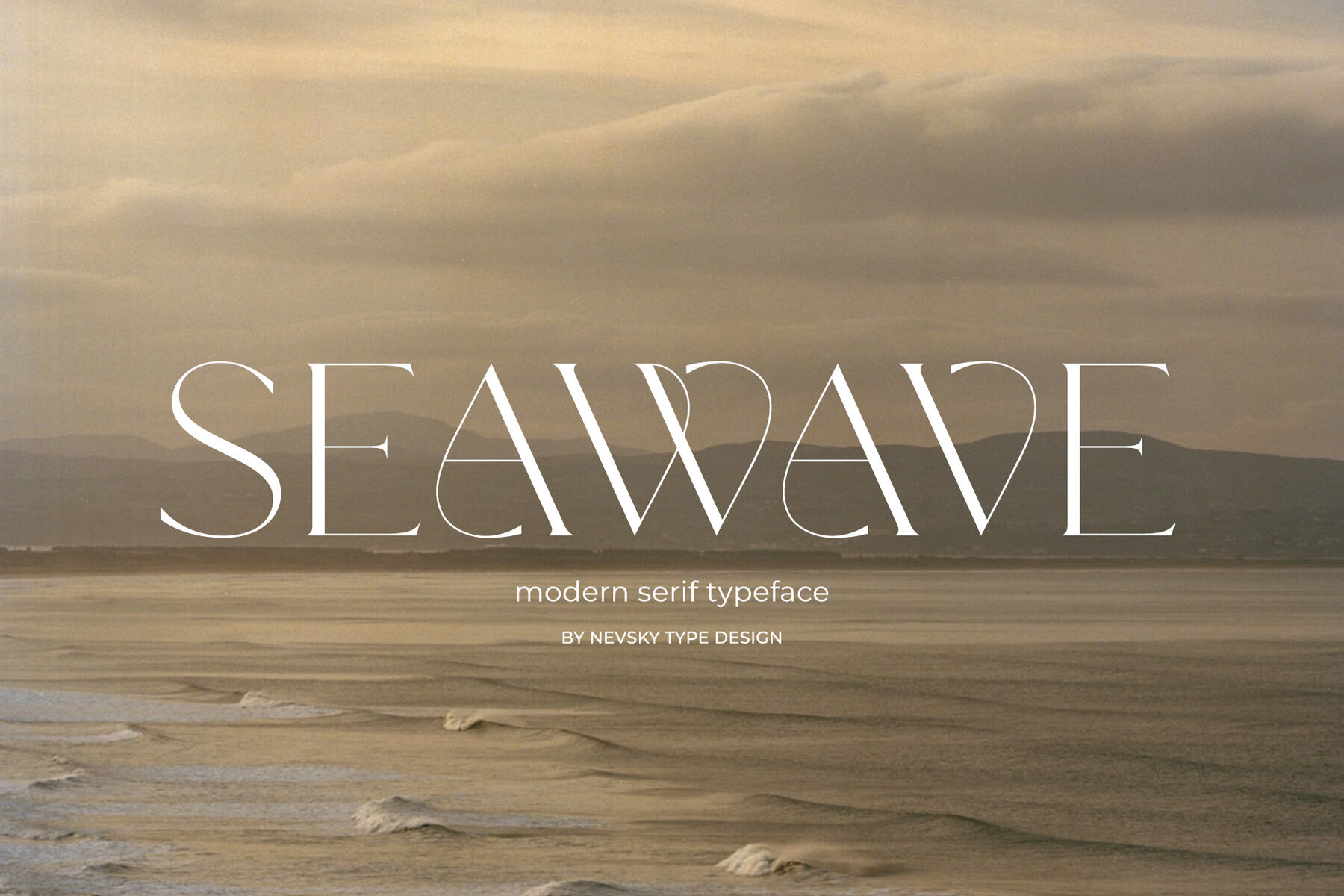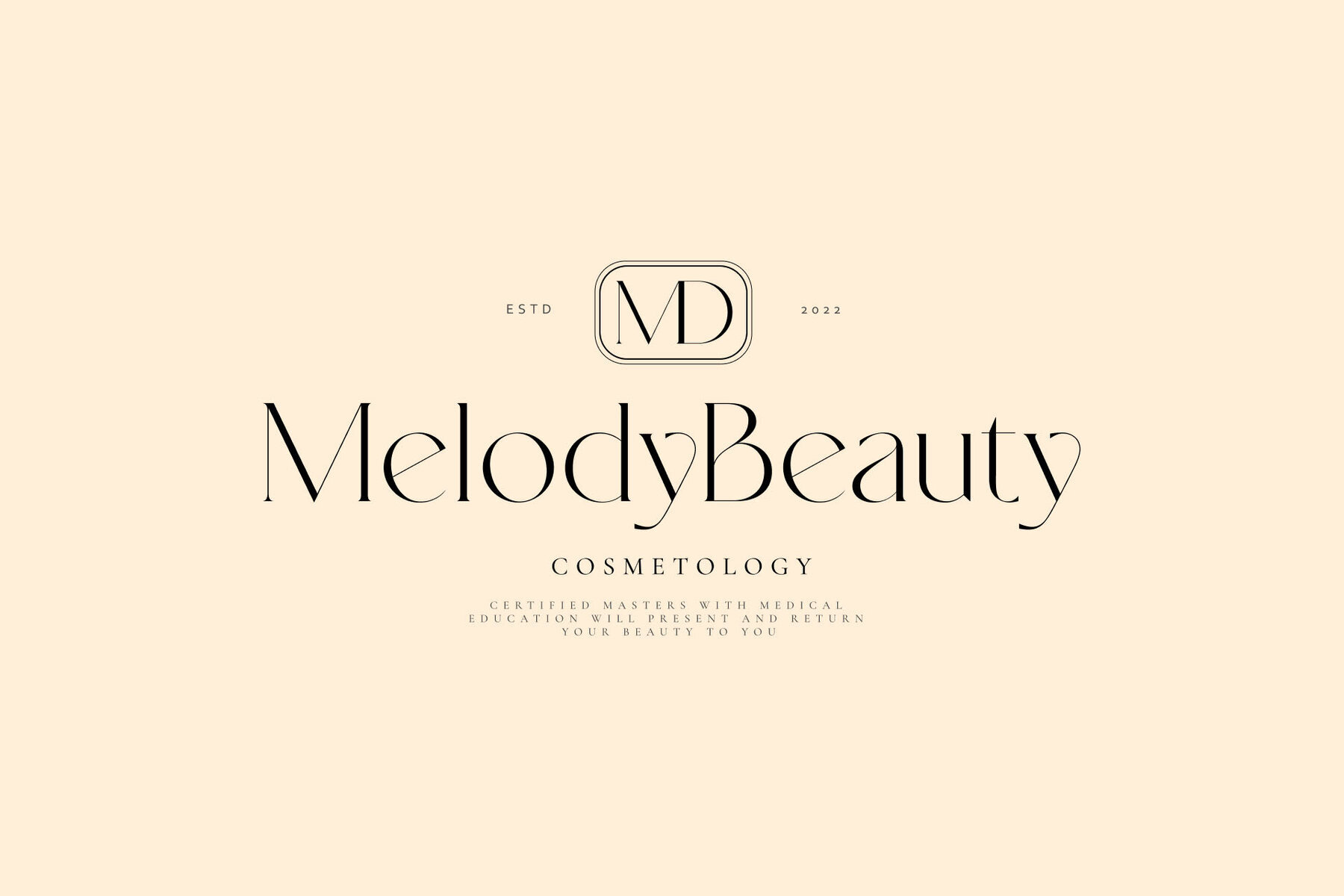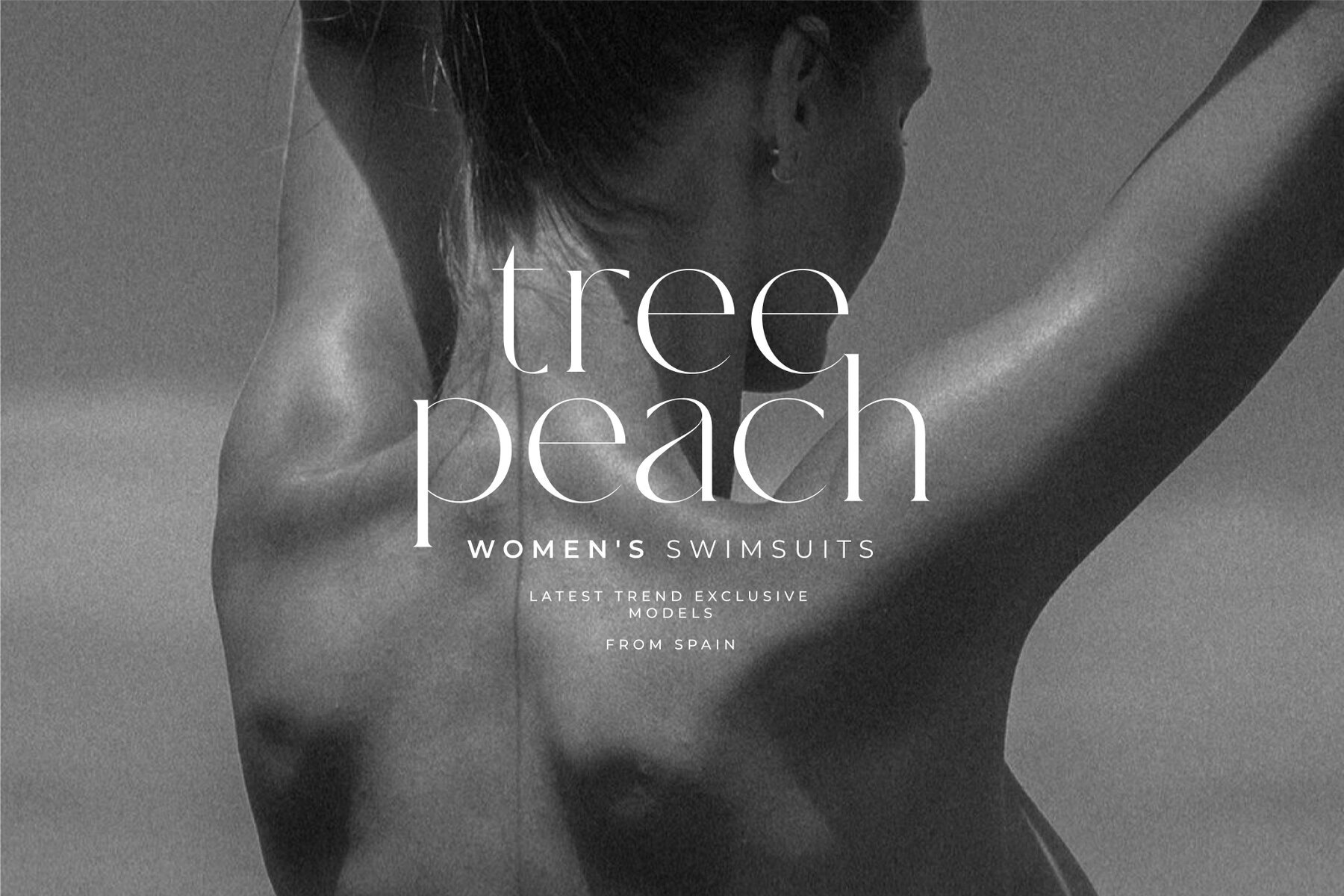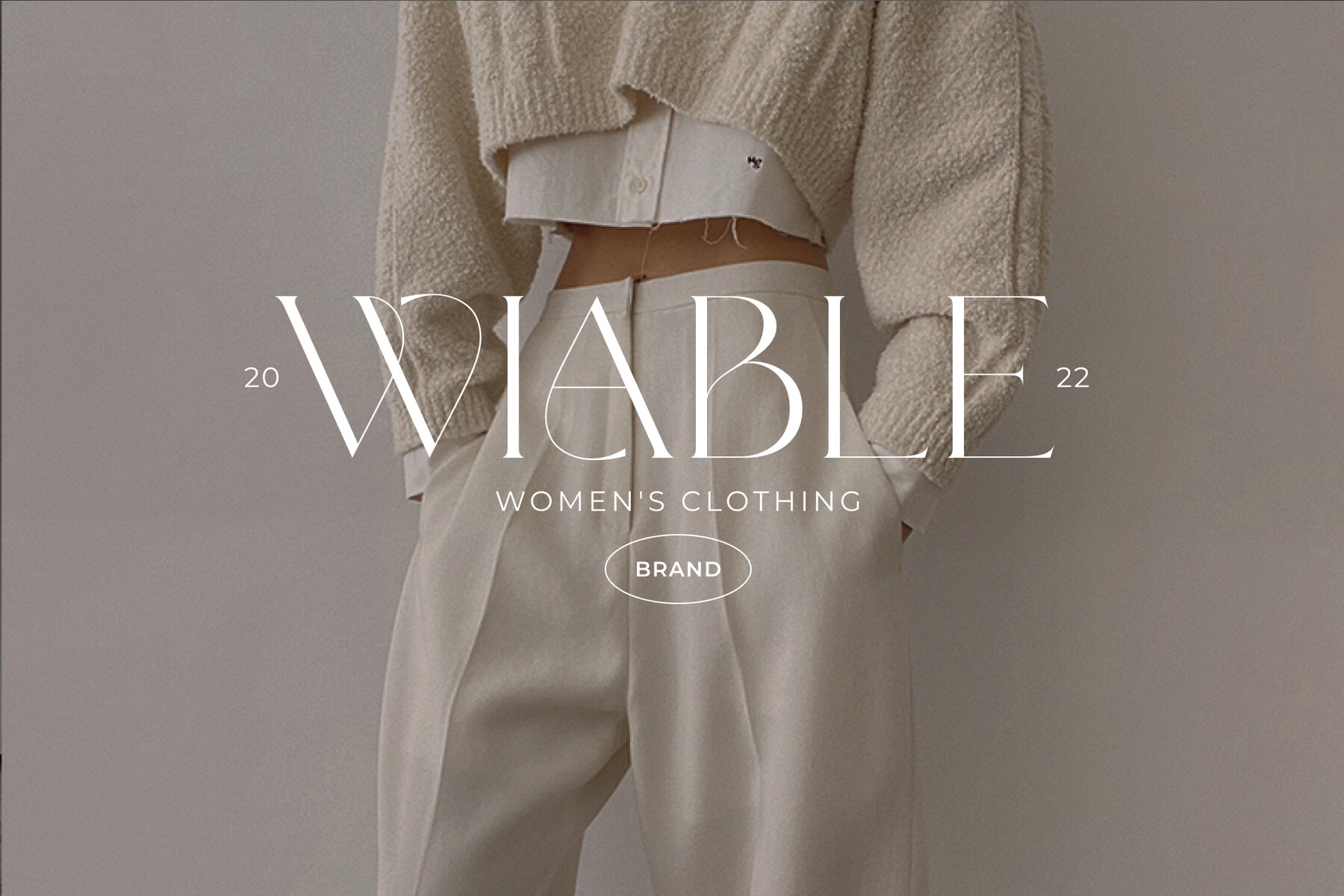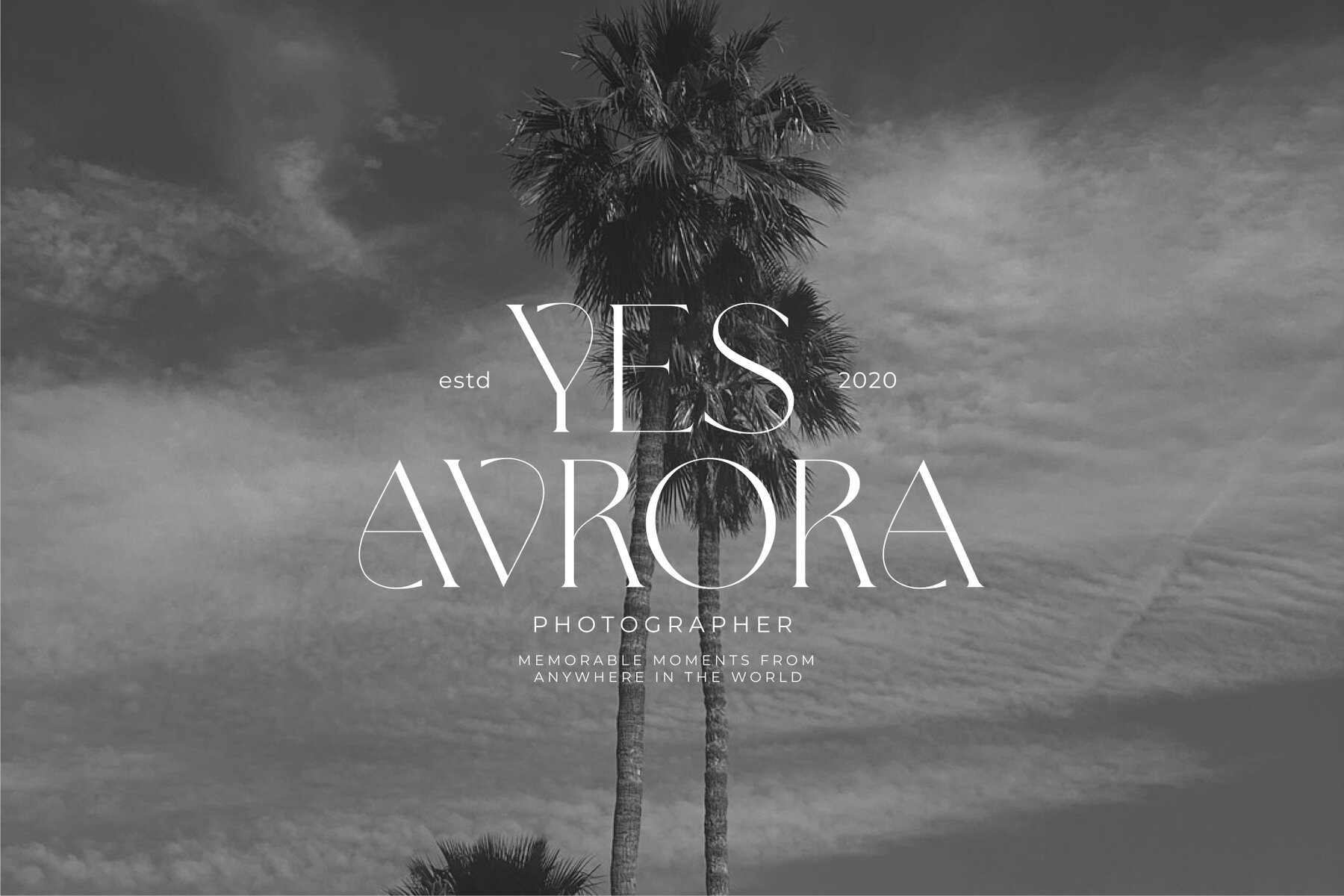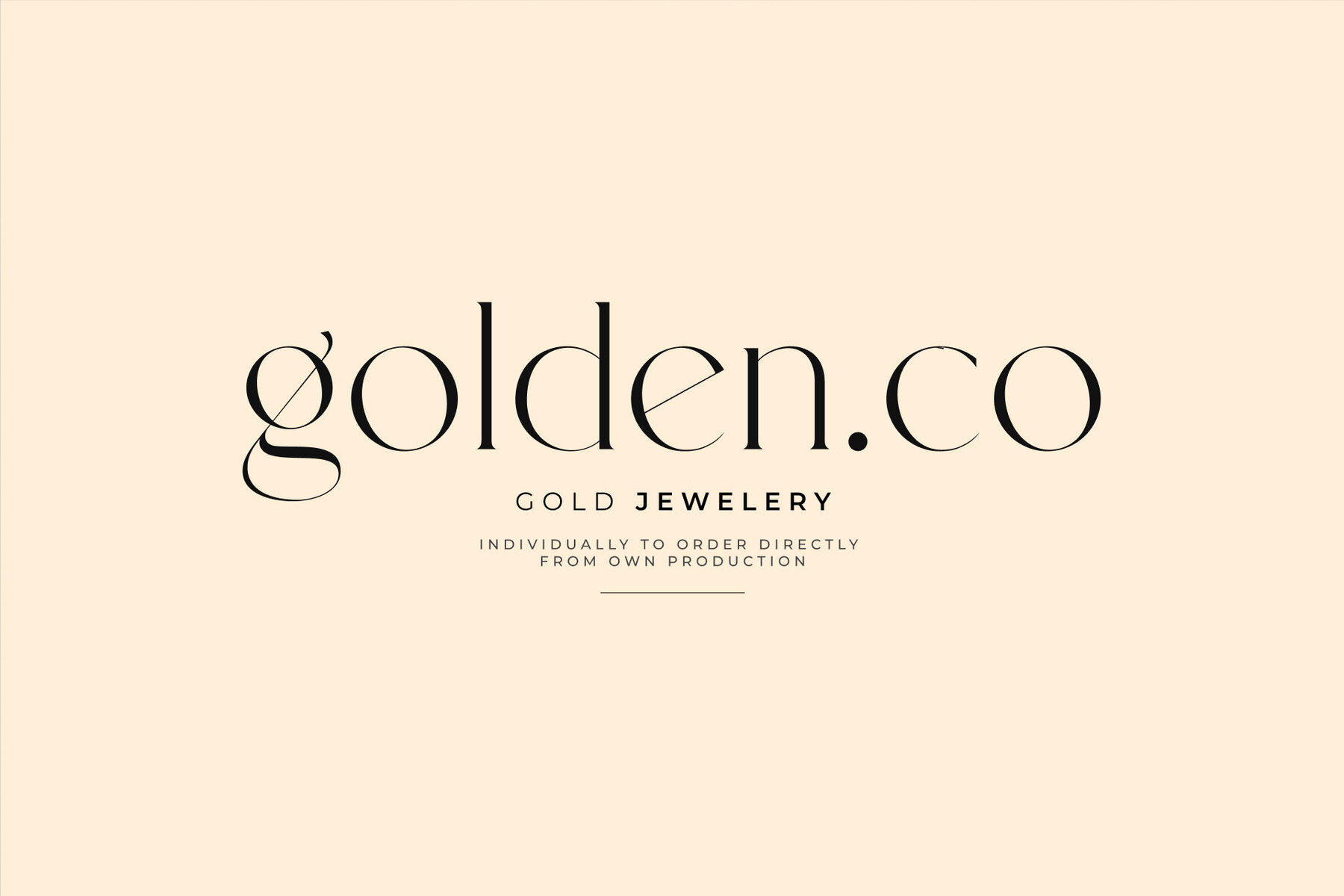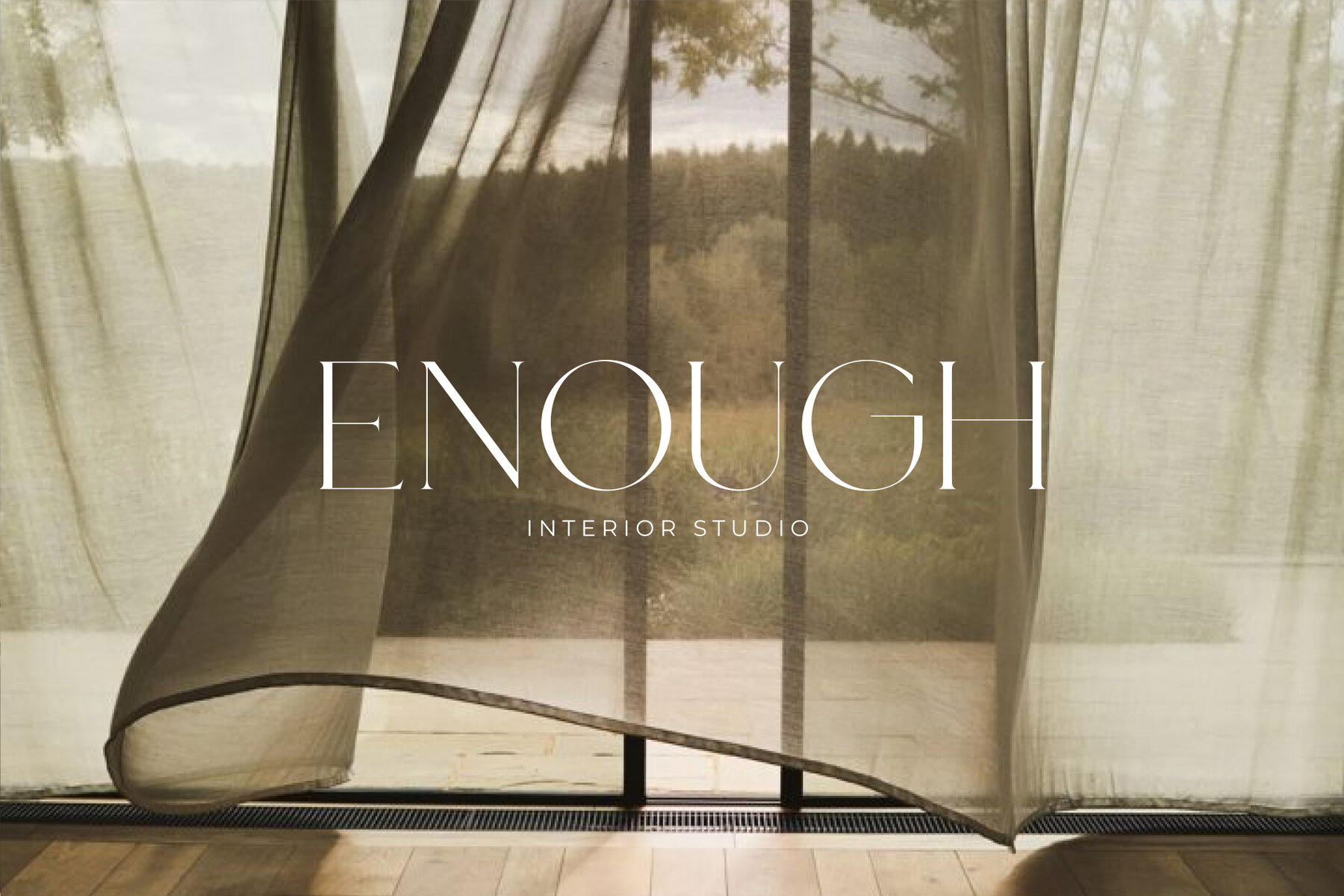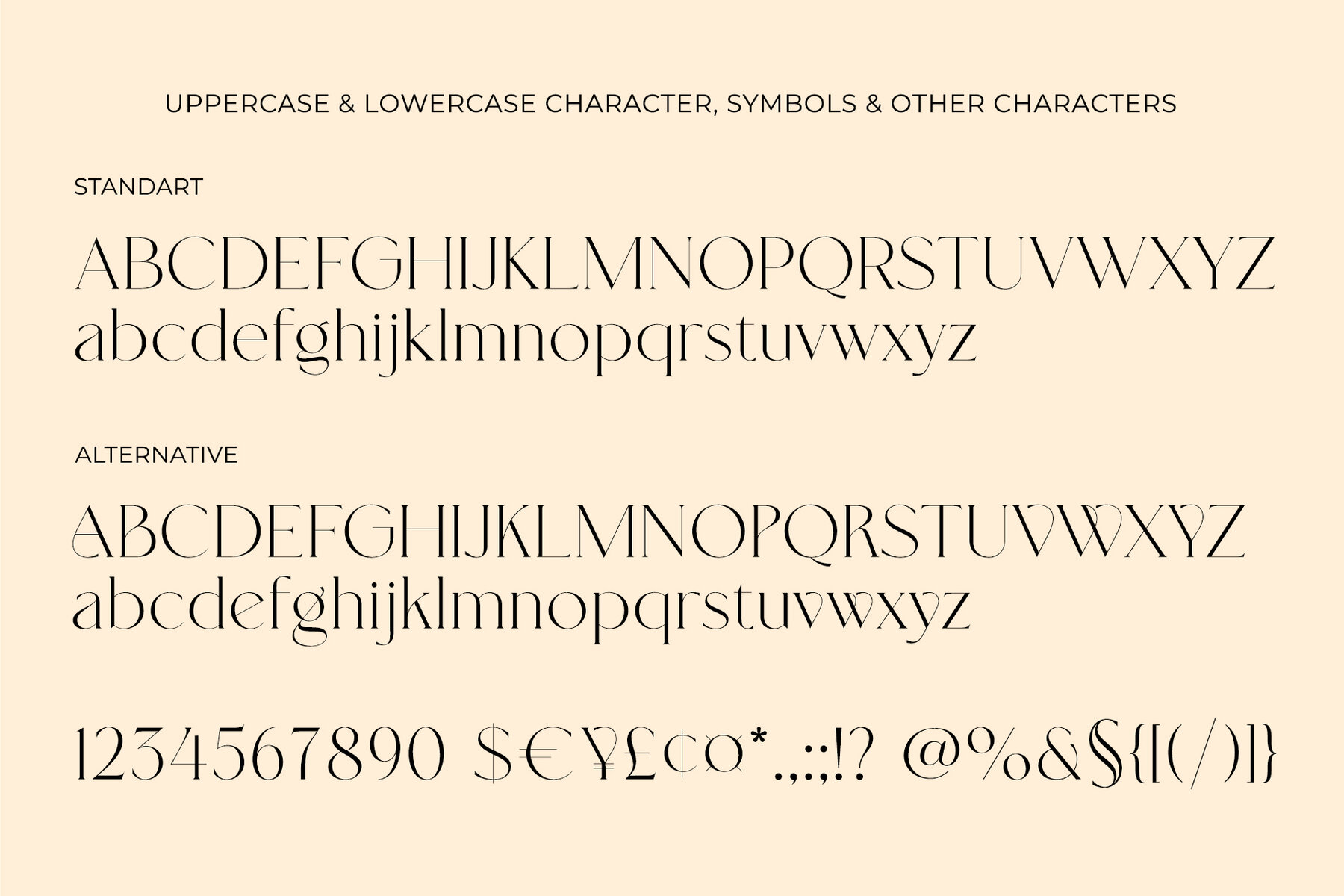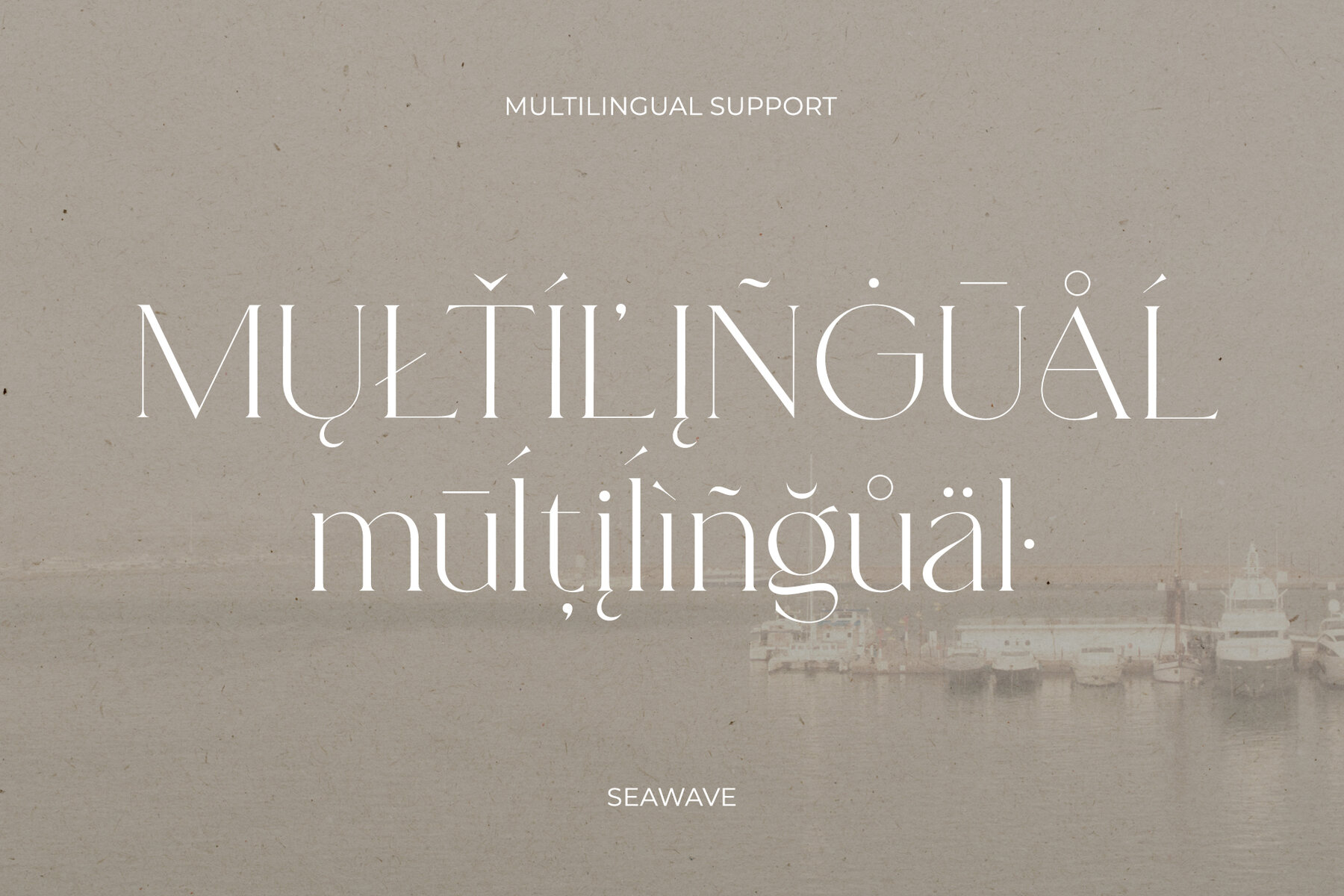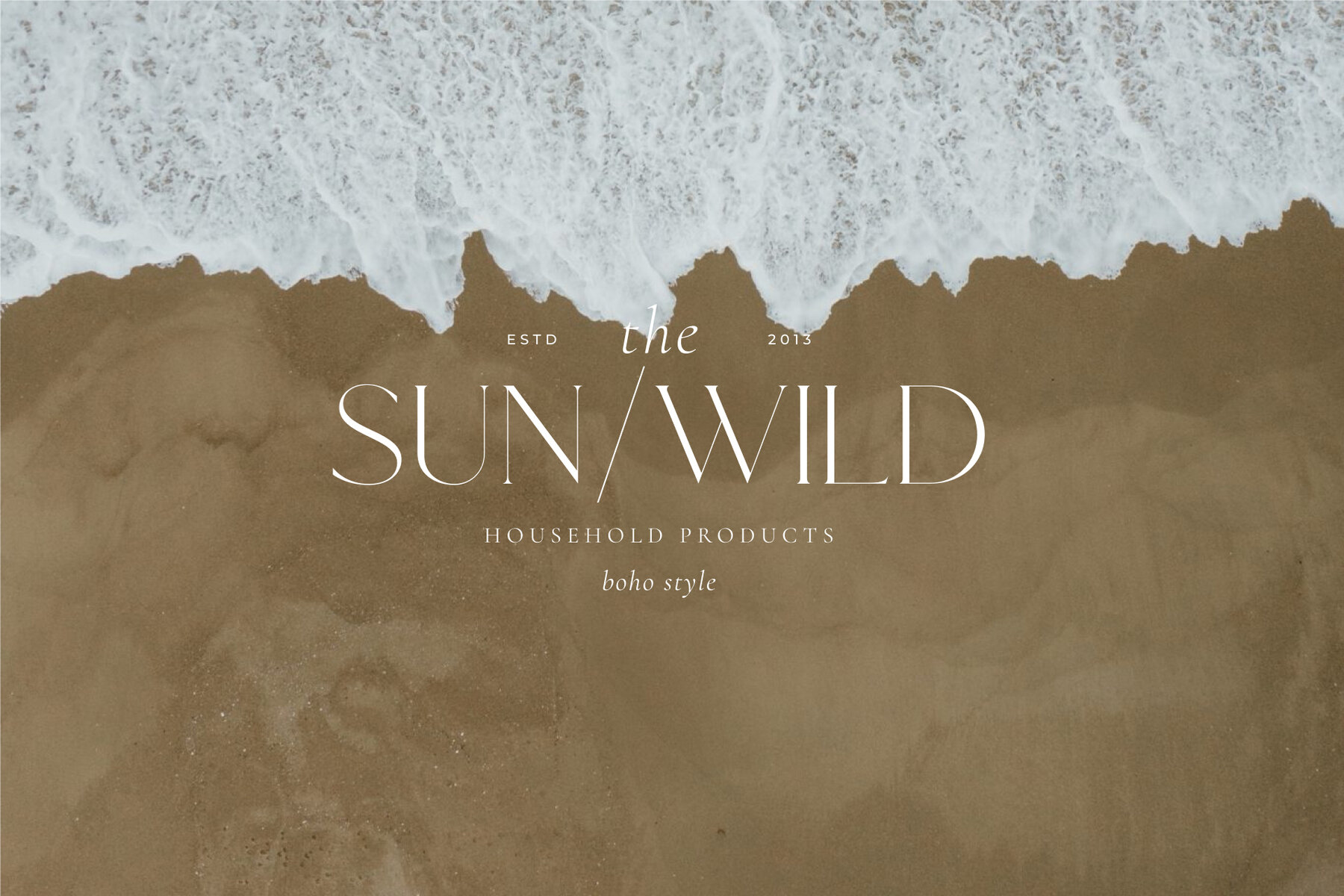
NT Seawave Font
NT Seawave is a versatile serif font designed by nevsky.type, offering comprehensive language support to enhance your projects. Ideal for a variety of design needs, this font ensures clarity and style.NT Seawave: A Multilingual Serif Font